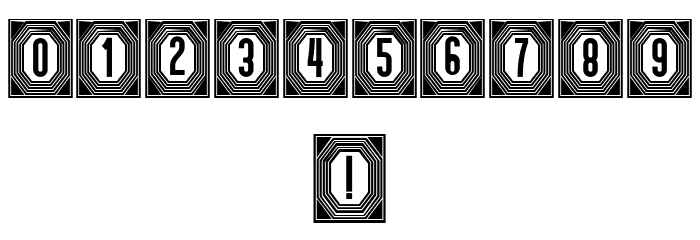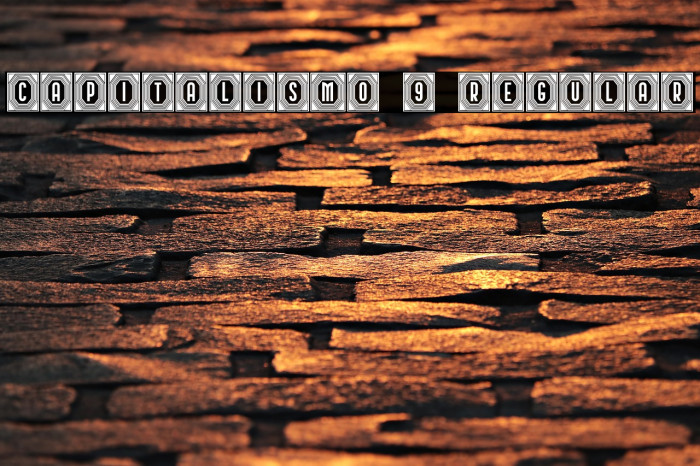
Capitalismo 9 Regular Font
This font features a bold and striking design with each character enclosed within a multi-layered octagonal frame. The letters and numbers are centered within these frames, creating a sense of depth and dimensionality. The geometric patterns surrounding each character add a decorative and intricate touch, making it stand out. The font combines modern aesthetics with a vintage flair, suitable for eye-catching displays. Its unique style is characterized by the interplay of bold lines and negative space, offering a visually engaging experience.
A bold, decorative font with characters enclosed in geometric octagonal frames.
- Proposed Projects: Ideal for posters, album covers, branding projects, and any design requiring a bold, decorative touch.
- Overall Style: Modern, Vintage